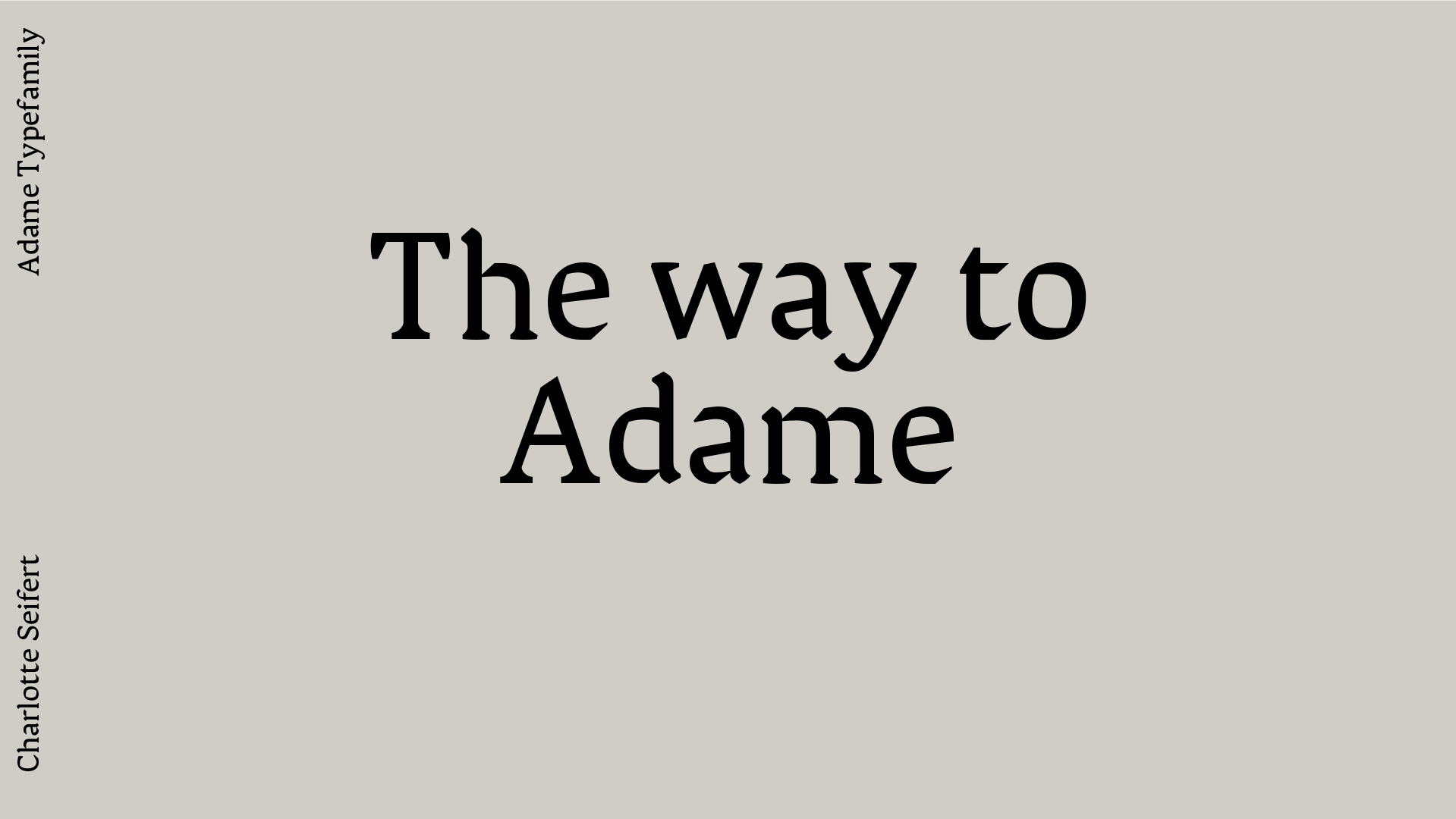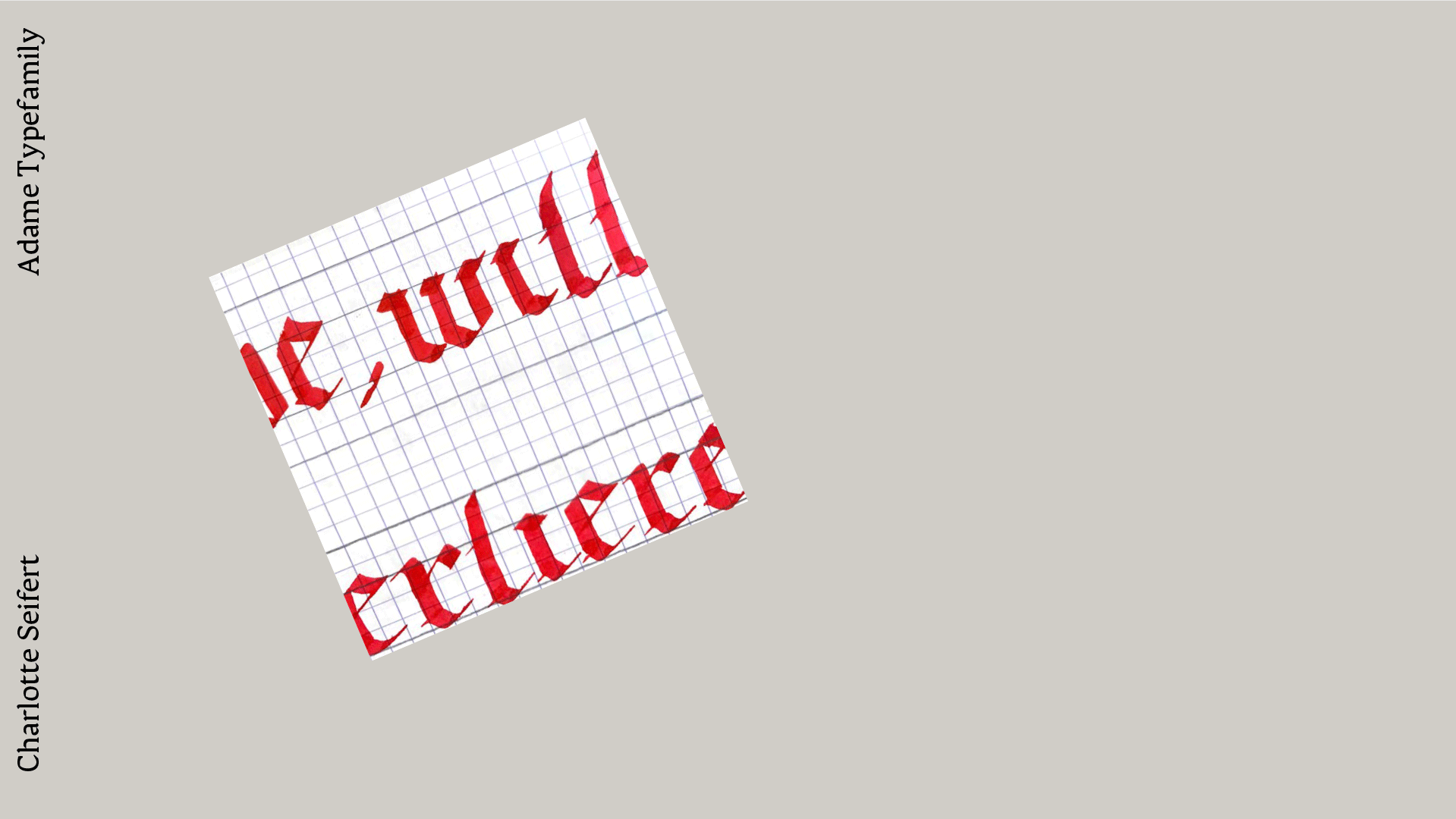
Adame
Adame typeface is a Blend of Tradition and Modernity.
I’m from Mainz, and so grew up with Gutenberg around the corner -- it was normal for me. But as I deep-dived more into the topic of printing and Typografie, I realized how interesting and beautiful his work was.
So, Adame was born from my fascination with the Textura and  the black letter.
Typefaces play a big role in shaping written language and in the beginning of of my research, I realized how much language changed through the years and with this also the written word.
So I set myself the task of trying to catch the spirt of the old written word and bring it into a modern typeface.
I dove into the world of handwritten manuscripts and studied black letters.
and I did a lot of Calligraphy in the style of the Textura. With this as a base I looked closer into the details. What can I take for my typeface and what is import to see the spirit of the Textura?
The typeface family currently consists of two styles in different wights.
The first style is the Text typeface. Adame Regular was designed for setting text in small to medium sizes. Perfect can also breathe new flair into old texts.
Adame text is available in different weights: light, regular bold and black. This gives you many possibilities to give the written word a different look. And to show your text in a versatile way. In addition to these weights, there is also an italic.
The bold and black version of the Adame can also be used for display. With the chunky nature and sharpe edges it gives a nice flair to every headline.
At the end of this course I started to explore another side of Adame. Beside the Text typeface it’s shows me that there is more. I begun with a Display version.
This version is also still in a development phase. However, it shows the essence of this historical style in its own way.
With an interpolation between the Adame regular Text and and the Adame Display it opened up the possibility to combine the two. A clear text typeface that has some sparkling and funky influences.